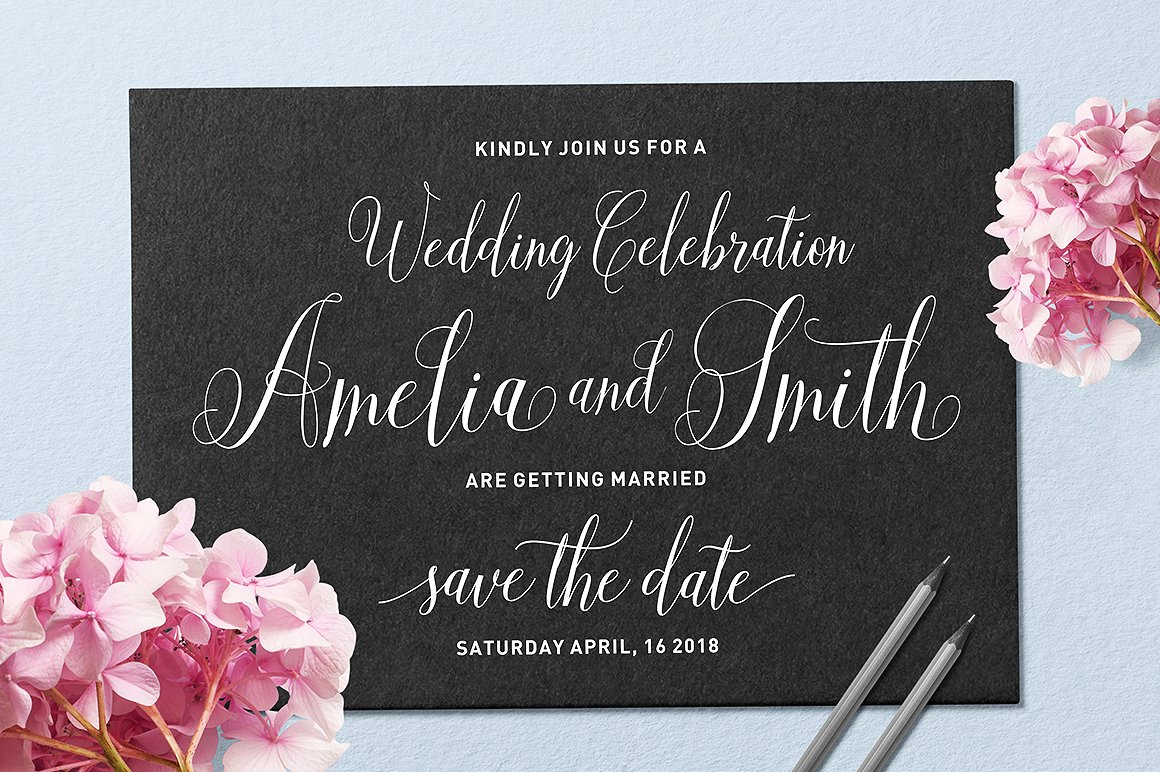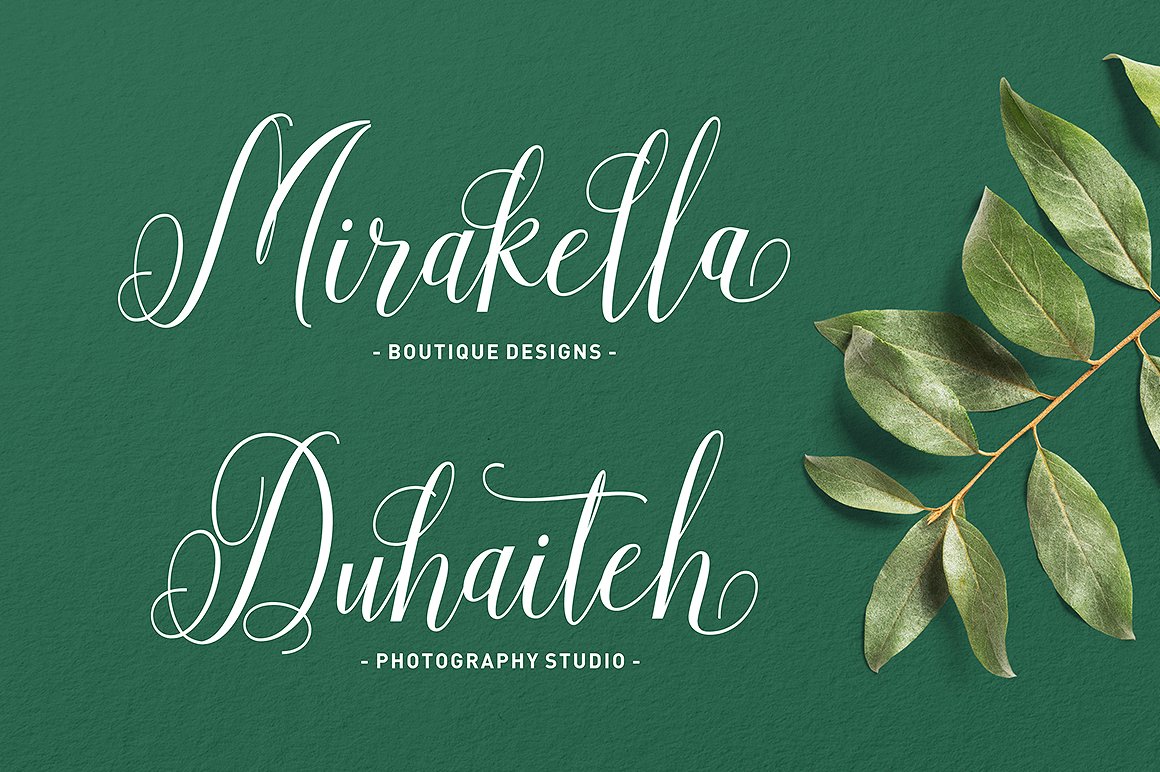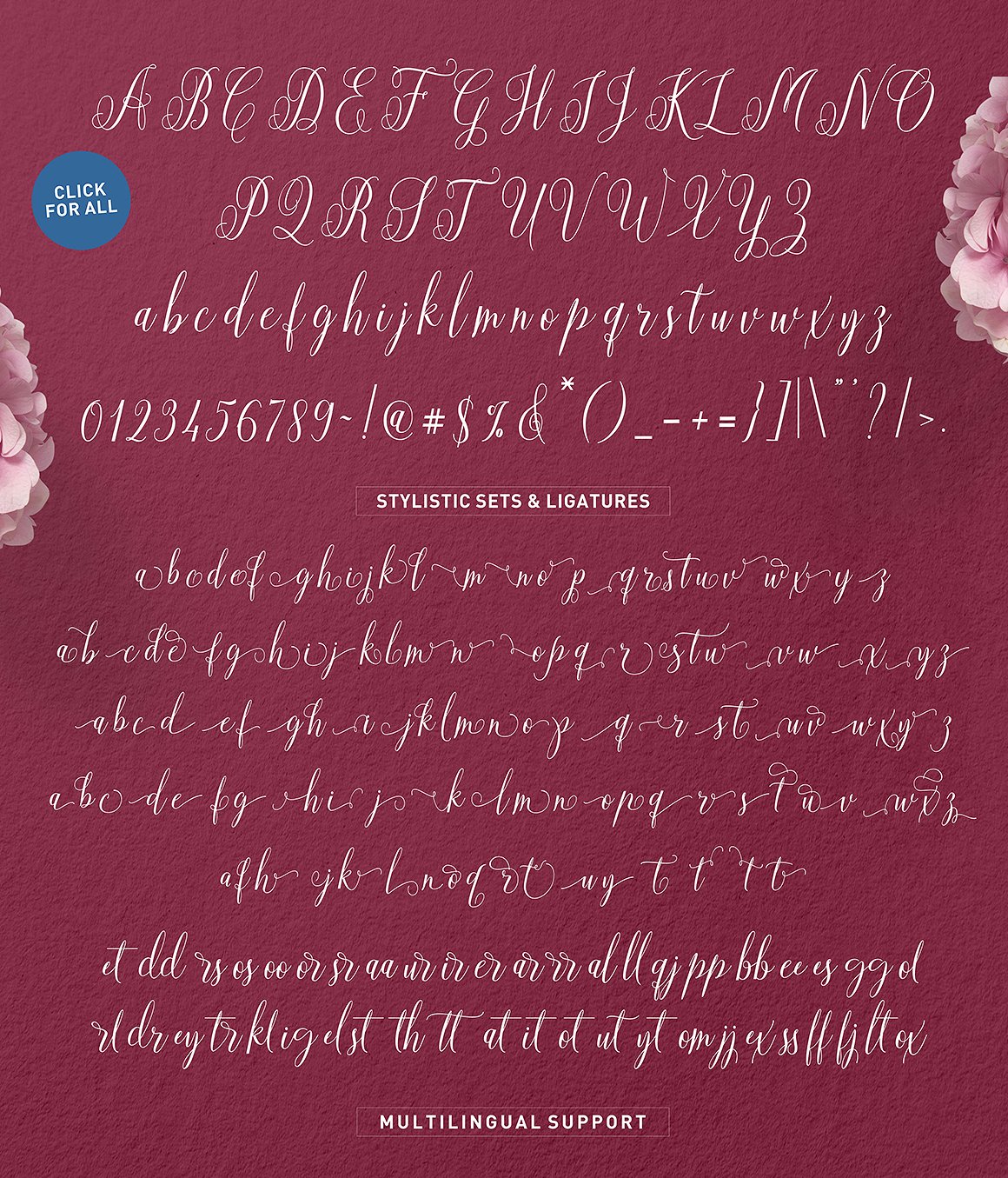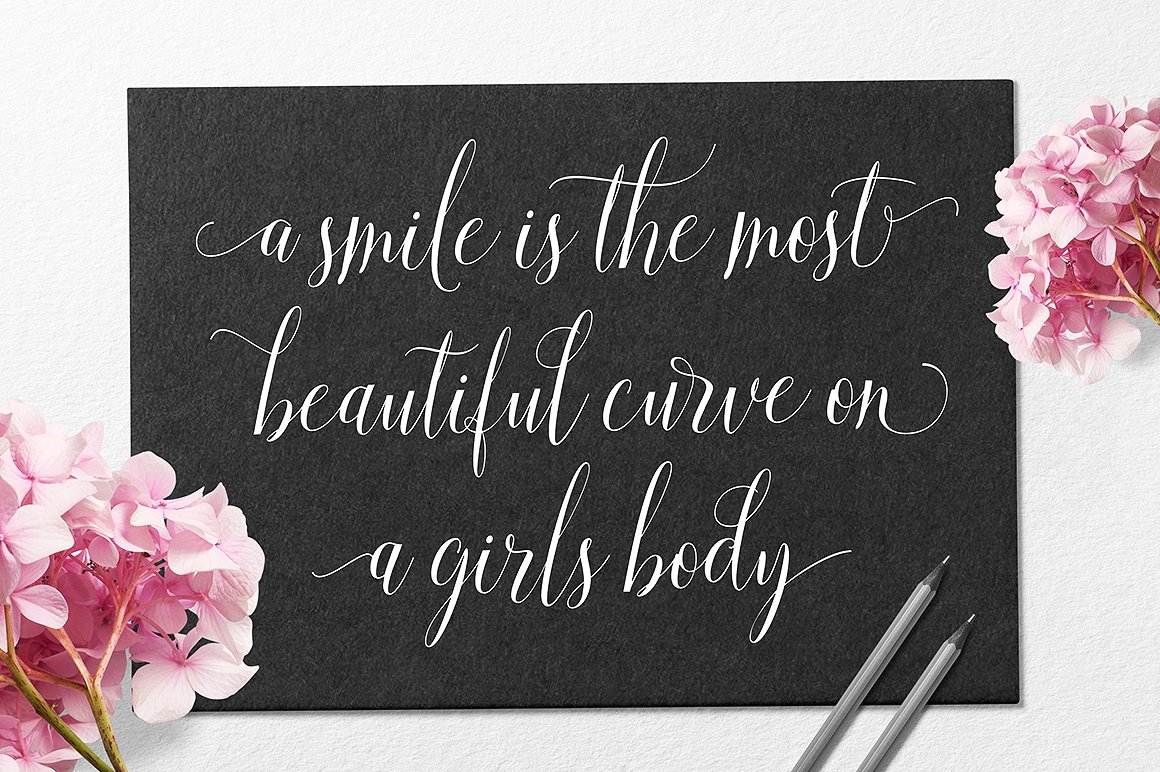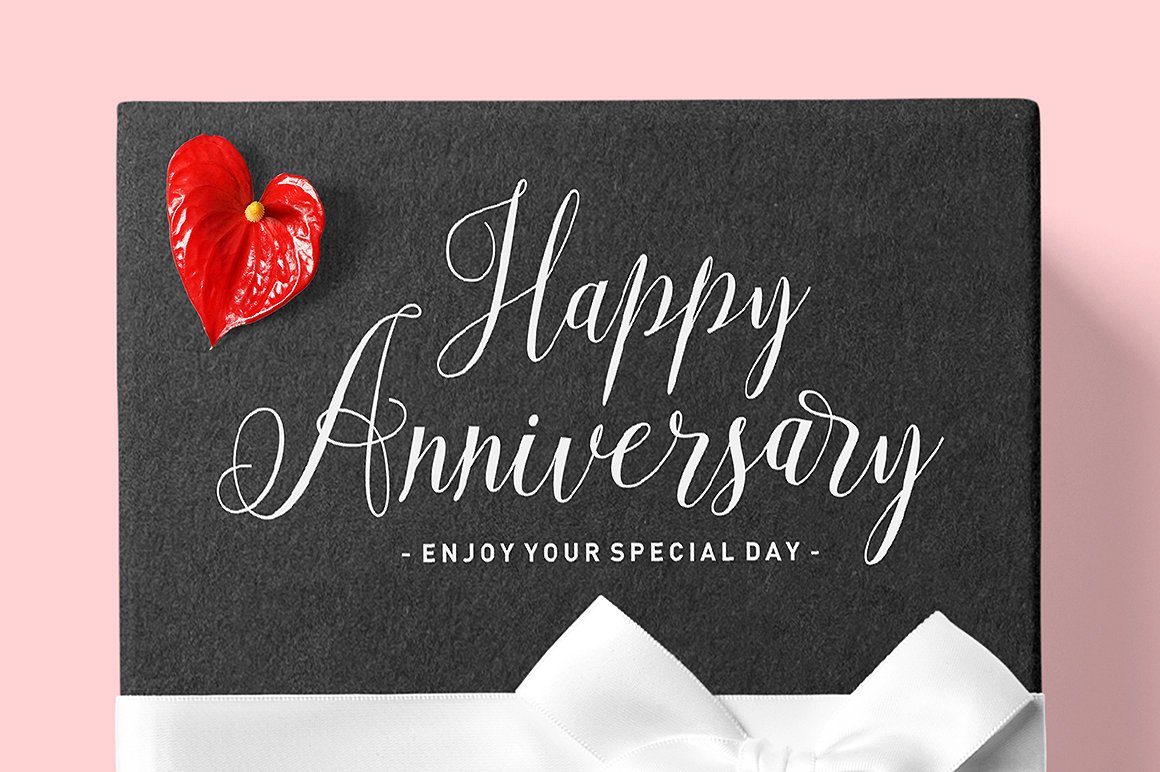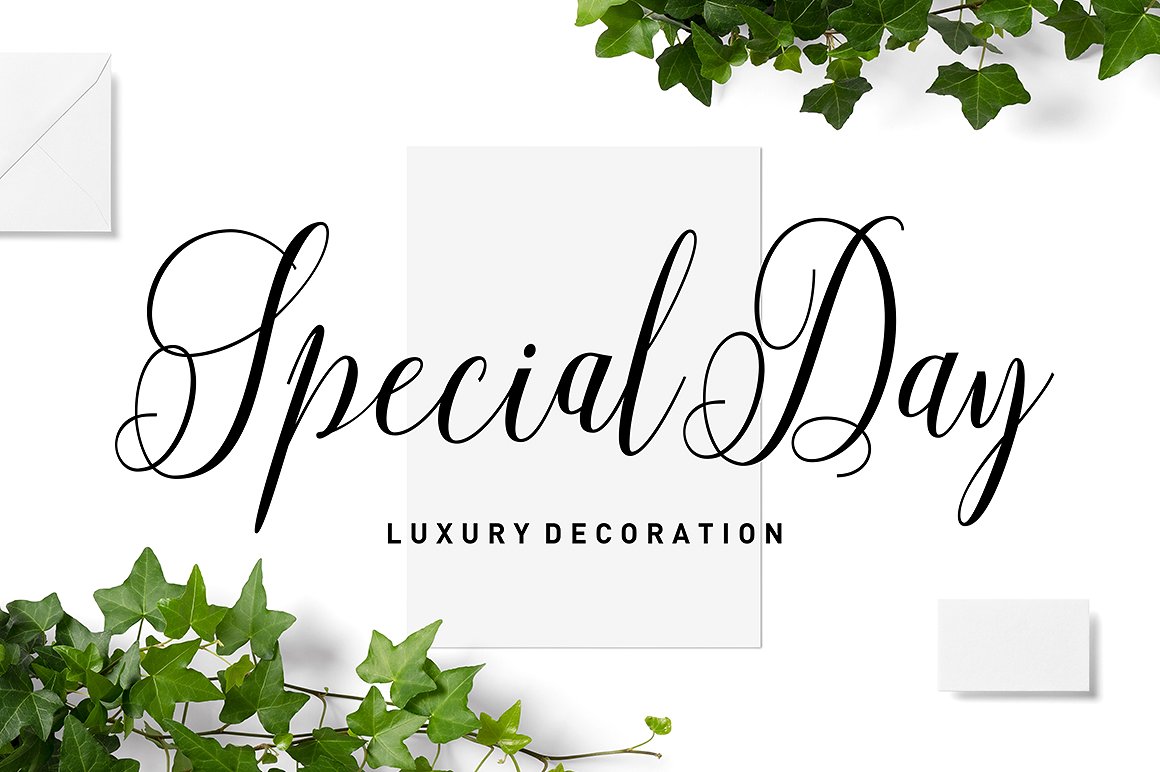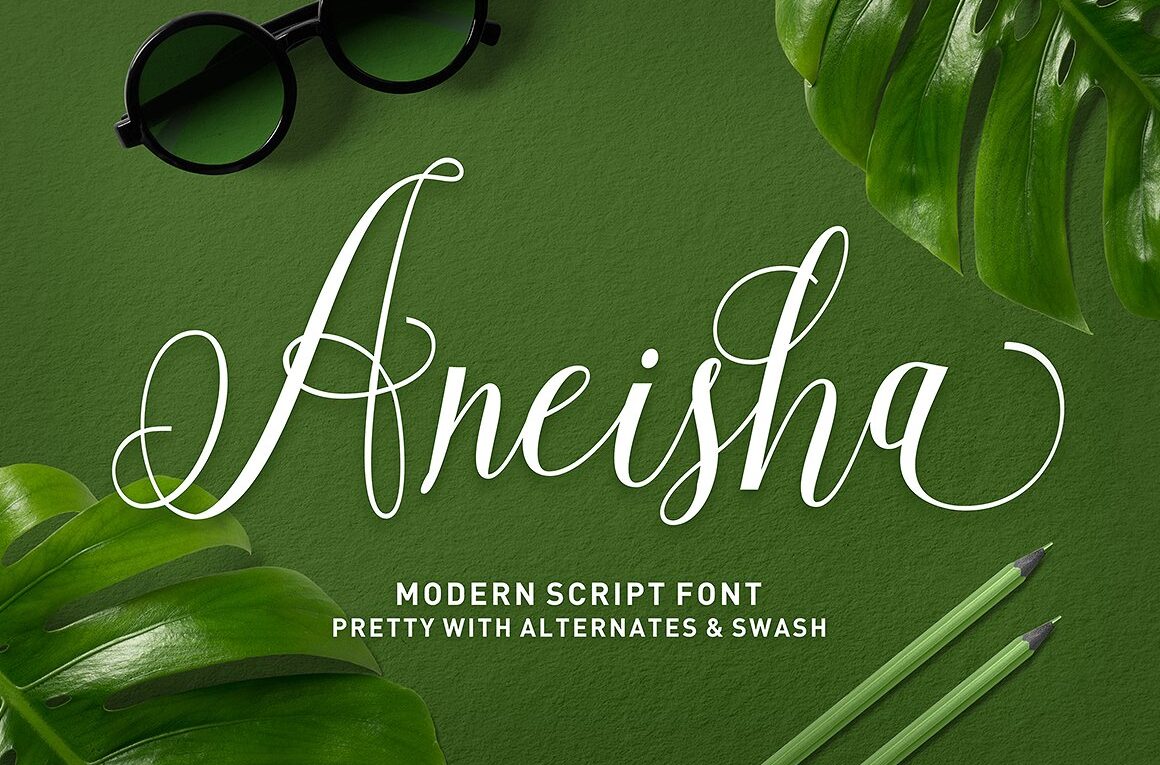
Aneisha Script Font: Elevate Your Designs with Elegance and Sophistication
In the world of typography, a font can make or break a design. For designers and crafters looking to add a touch of elegance and sophistication to their projects, Aneisha Script Font is an excellent choice. This modern calligraphy font is crafted to look pretty and stylish, making it perfect for a wide range of applications, from wedding invitations and branding materials to social media graphics and more.
What Makes Aneisha Script Font Special?
Aneisha Script Font stands out from the crowd with its beautiful, flowing script style. Each letter is carefully designed to exude a sense of luxury and refinement, making it ideal for designs that require a high level of sophistication. Whether you’re working on a logo, a brochure, or a social media post, Aneisha Script Font is sure to elevate your design and leave a lasting impression.
Tons of Stylistic Alternates at Your Fingertips
One of the most impressive features of Aneisha Script Font is its extensive collection of stylistic alternates. With tons of alternate characters, you can create wonderfully unique headlines and special messages that reflect your personal style. This versatility makes Aneisha Script Font perfect for designers and crafters who want to add a personal touch to their work.
Aneisha Script Font is incredibly versatile and can be used in a wide range of applications, including:
- Brochures, flyers, and other marketing materials
- Packaging and labeling
Why Choose Aneisha Script Font?
There are many script fonts available, but Aneisha Script Font stands out for several reasons:
- Unique and elegant design: Aneisha Script Font features a beautiful, modern calligraphy style that is sure to turn heads.
- Highly versatile: With tons of stylistic alternates, you can create a wide range of unique designs and messages.
- Perfect for designers and crafters: Whether you’re a professional designer or a crafter looking to add a personal touch to your work, Aneisha Script Font is an excellent choice.
Tips for Using Aneisha Script Font
To get the most out of Aneisha Script Font, here are a few tips:
- Experiment with different alternates: Don’t be afraid to try out different stylistic alternates to find the perfect look for your design.
- Pair with complementary fonts: Aneisha Script Font pairs well with a variety of fonts, so experiment with different combinations to find the perfect match.
- Use for headlines and titles: Aneisha Script Font is perfect for headlines and titles, but don’t be afraid to use it for body text as well.
| Font Name | Aneisha Script Font |
| Author | Solidtype |